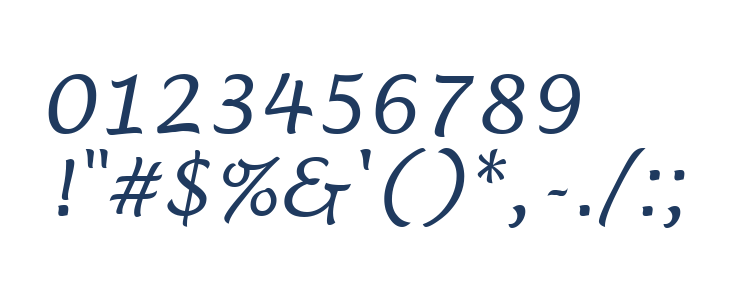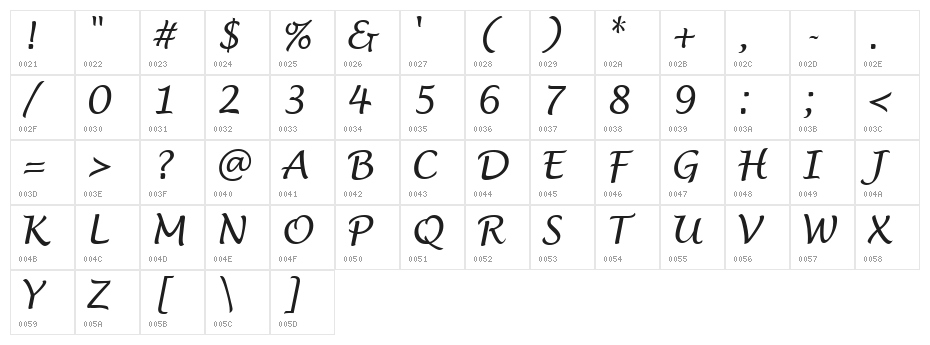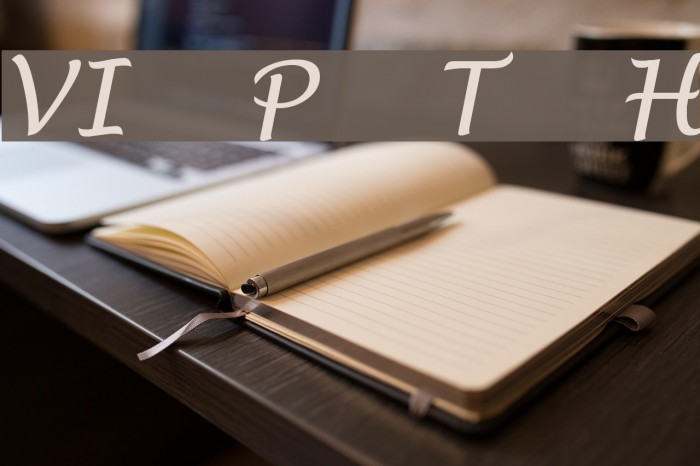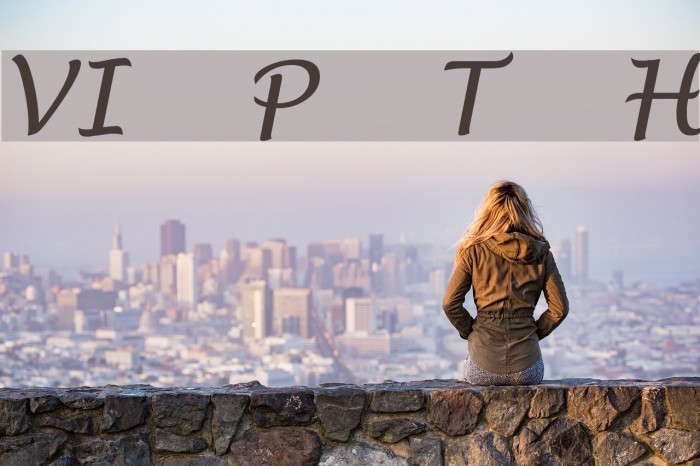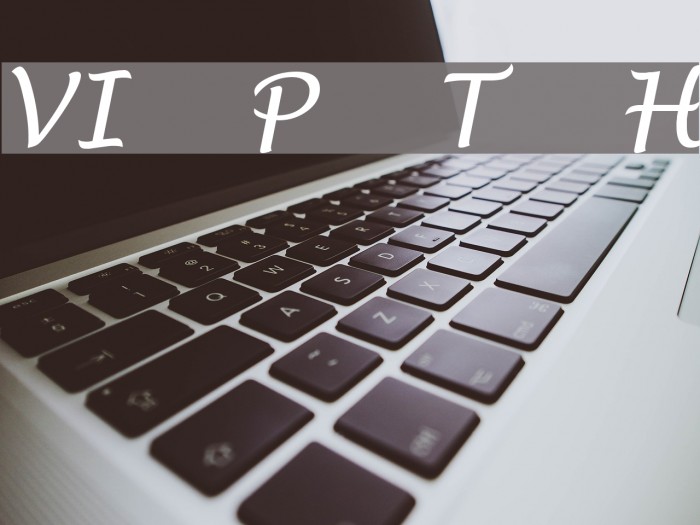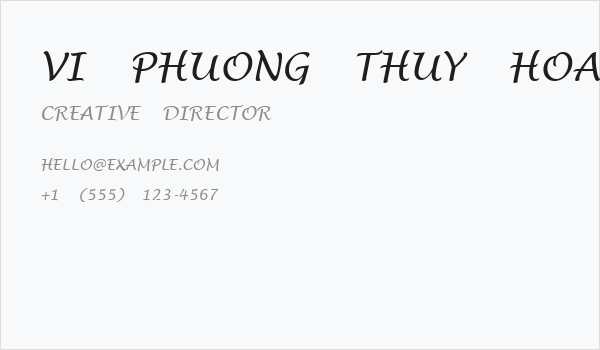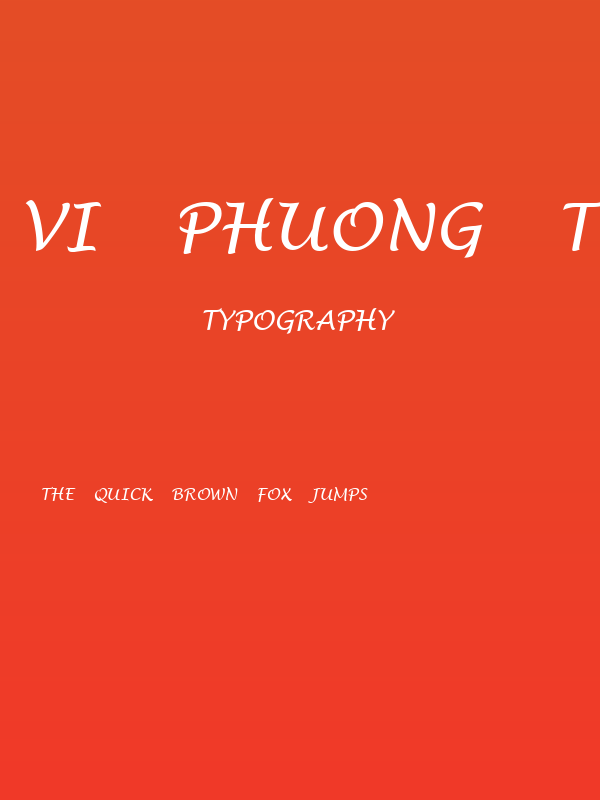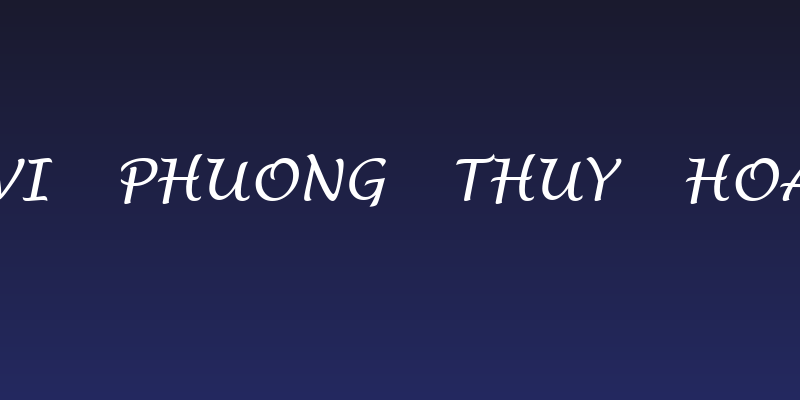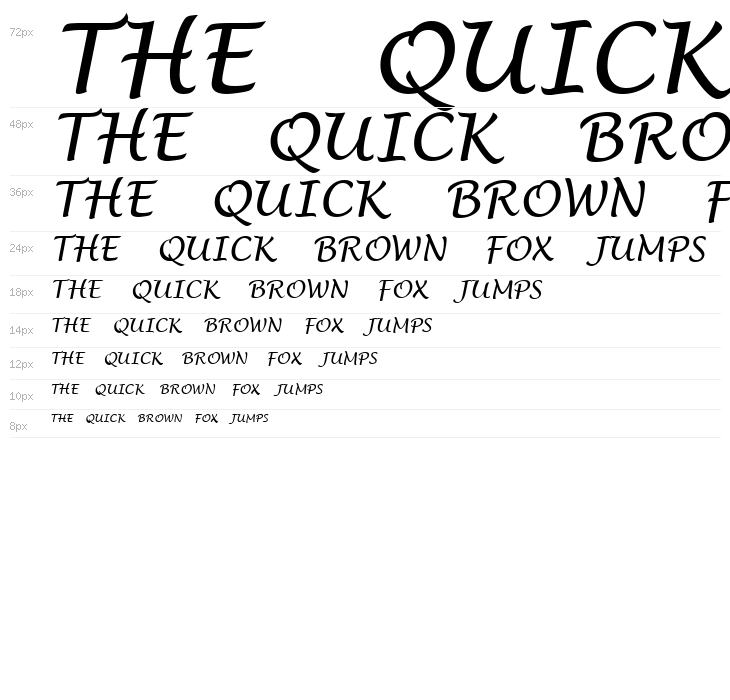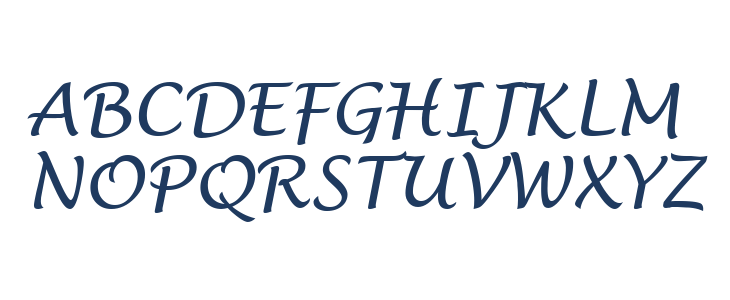
VI Phuong Thuy Hoa Font
VI Phuong Thuy Hoa Description
This font exudes a classic and elegant script style, characterized by its flowing, cursive letterforms that mimic traditional handwriting. The uppercase letters are slightly more ornate, with gentle curves and flourishes, while the lowercase letters maintain a consistent, smooth flow. The numerals are designed to match the script style, with a slight slant and rounded edges. Special characters are integrated seamlessly, maintaining the overall aesthetic. The font's design is both sophisticated and legible, making it suitable for a variety of formal and decorative applications.